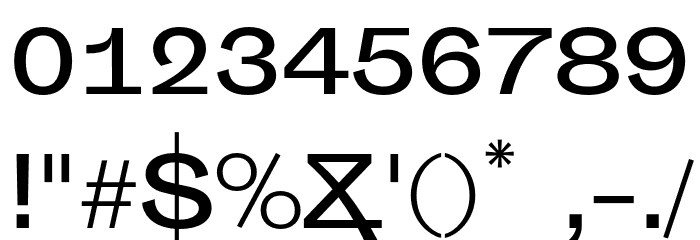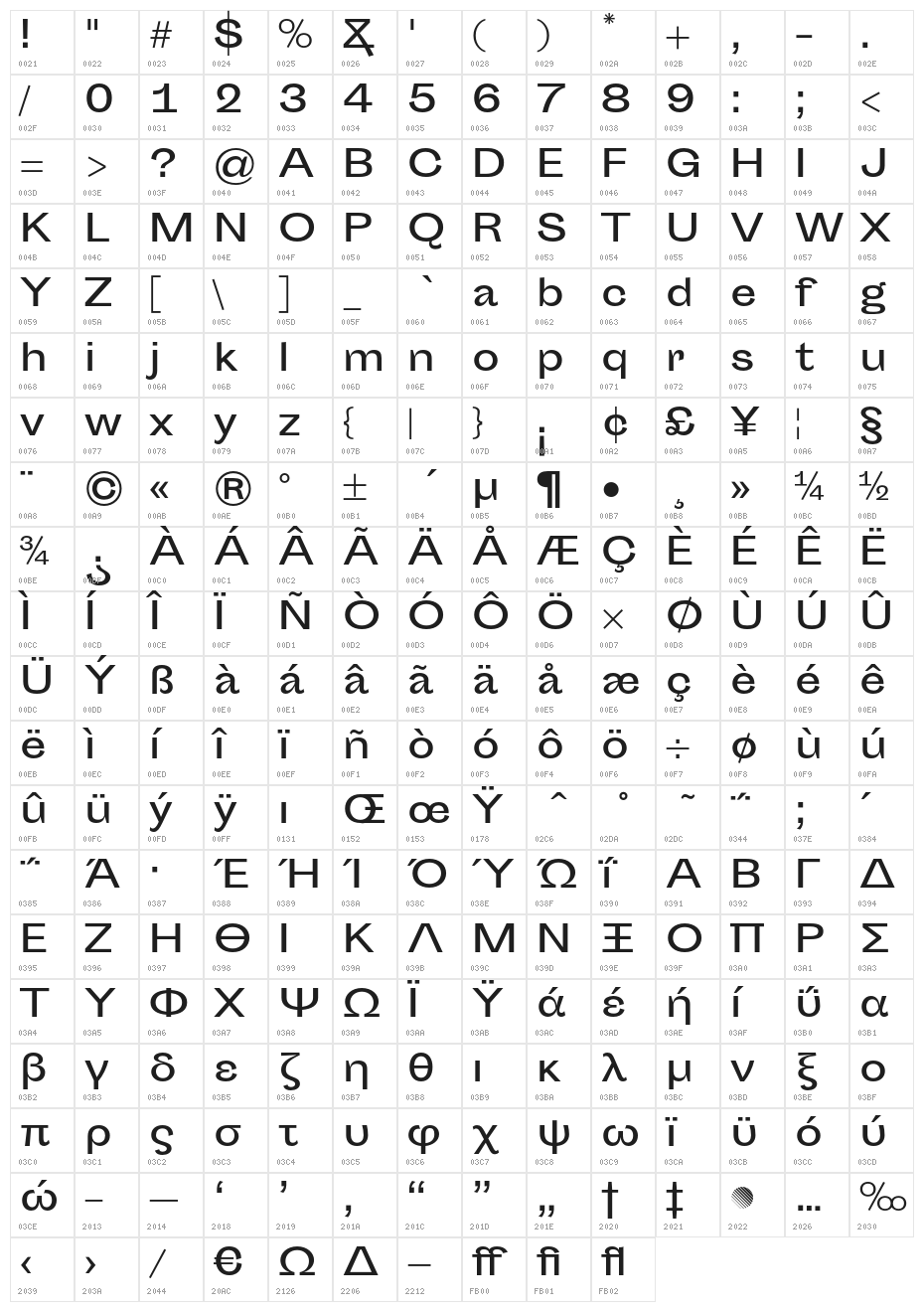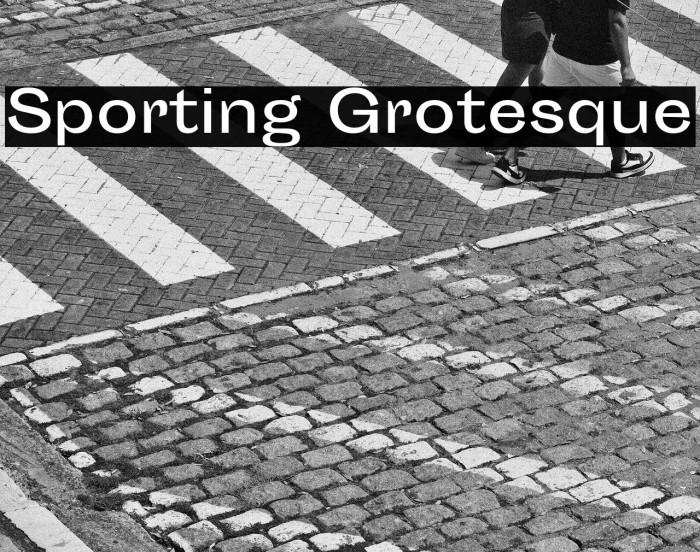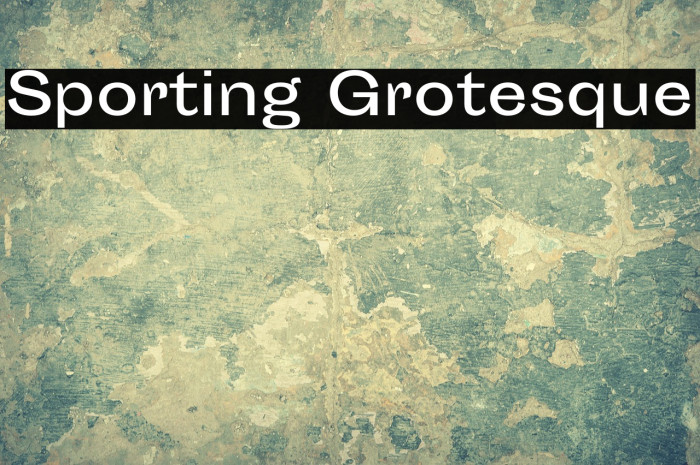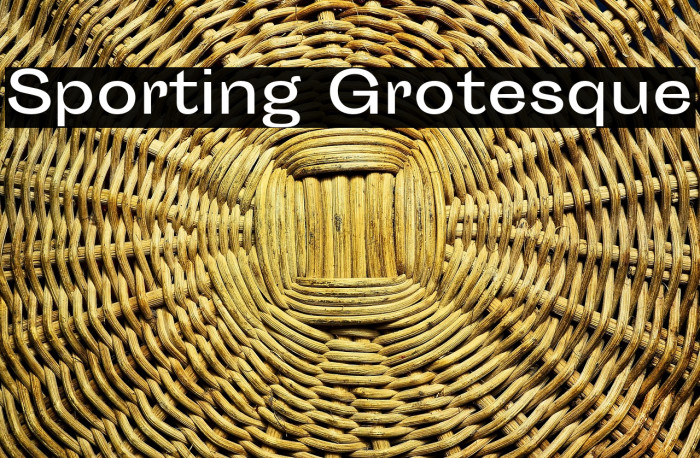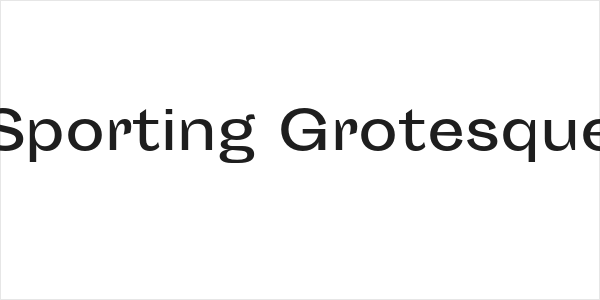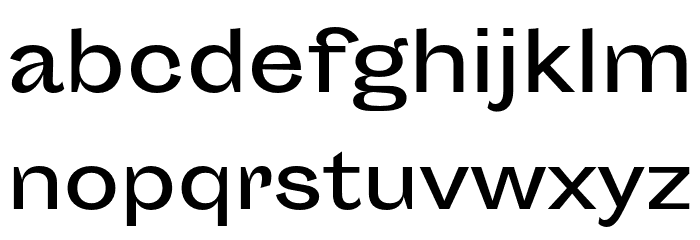
Sporting Grotesque Font
Sporting Grotesque Description
This typeface features a clean and modern sans-serif design, characterized by its geometric shapes and uniform stroke widths. The uppercase letters are bold and assertive, while the lowercase letters maintain a consistent and harmonious appearance. The numerals are clear and legible, making them suitable for various applications. Special characters are well-defined, adding versatility to the font's use. The overall design is minimalistic yet impactful, making it ideal for contemporary design projects.
Use CaseHeadlines, Body text, Logos
Proposed ProjectsIdeal for branding, advertising, web design, and editorial layouts where a modern and clean aesthetic is desired.